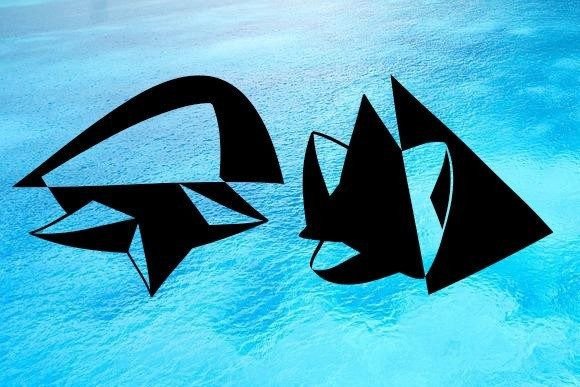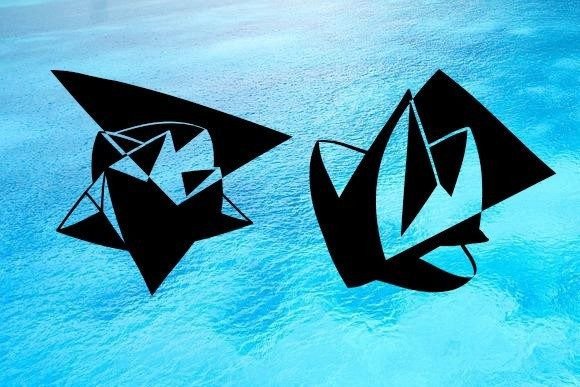
Formo Font
ABOUT FORMO FONT
“Formo” is a remarkable dingbat font that offers a diverse collection of unique and intricate geometric shapes. These captivating symbols can add a touch of sophistication and visual interest to your design projects.
With “Formo,” you have access to a wide range of geometric patterns, abstract forms, and artistic elements that can elevate your designs. Whether you’re creating flyers, postcards, posters, or any other visual materials, the “Formo” dingbat font can bring a modern and stylish flair to your compositions.
The versatility of “Formo” allows you to experiment with different layouts and arrangements, creating visually striking and eye-catching designs. The intricate geometric shapes and patterns can serve as decorative elements or even as a focal point of your artwork.
This dingbat font opens up endless creative possibilities. You can use the symbols individually or combine them to create intricate patterns and designs that are uniquely yours. The clean and precise nature of the geometric forms in “Formo” makes it suitable for both minimalist and elaborate design styles.
By incorporating the “Formo” dingbat font into your projects, you can add a touch of sophistication and artistic flair. Whether you’re designing for personal or commercial purposes, this font can bring a sense of elegance and visual impact to your work.